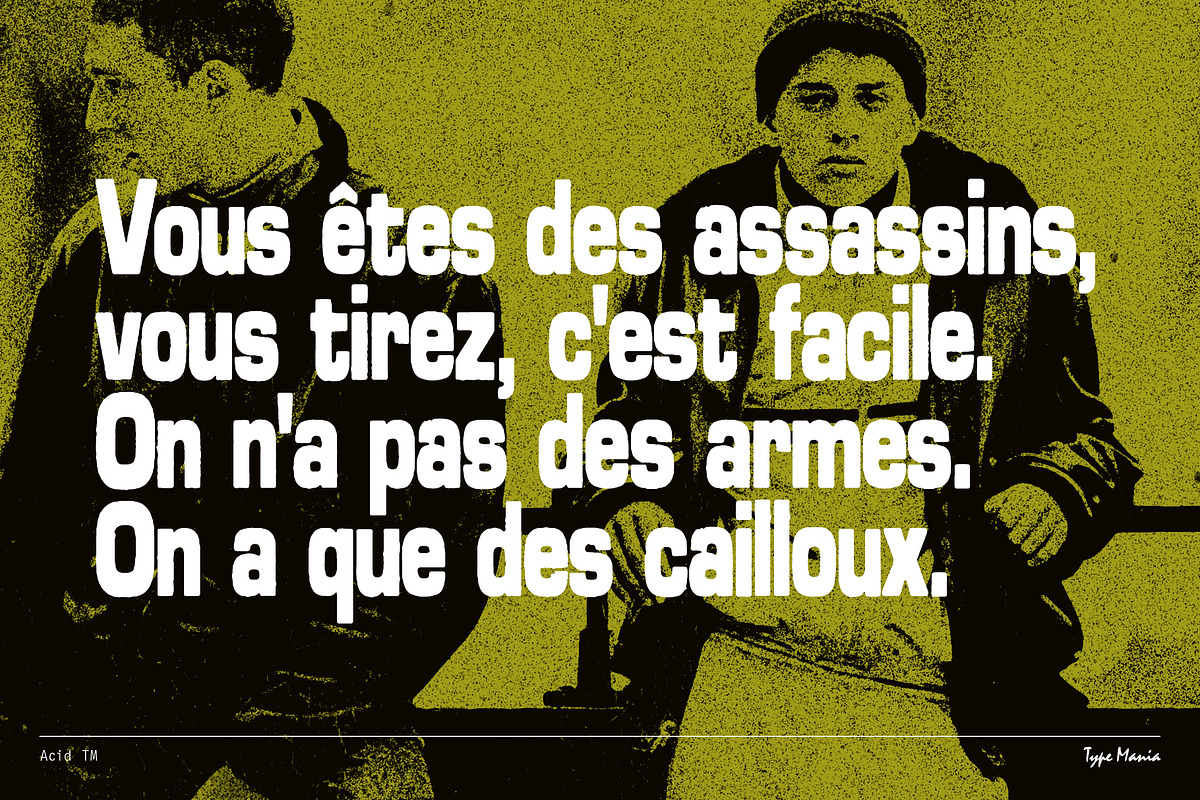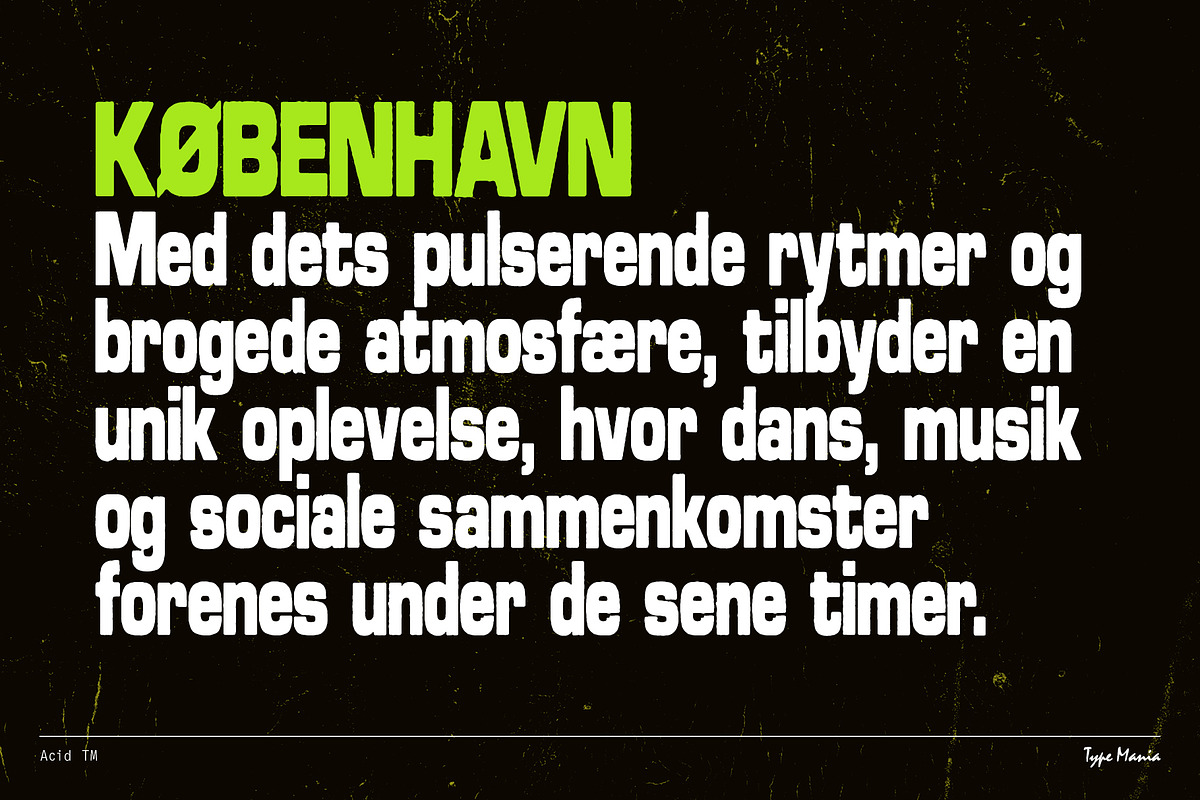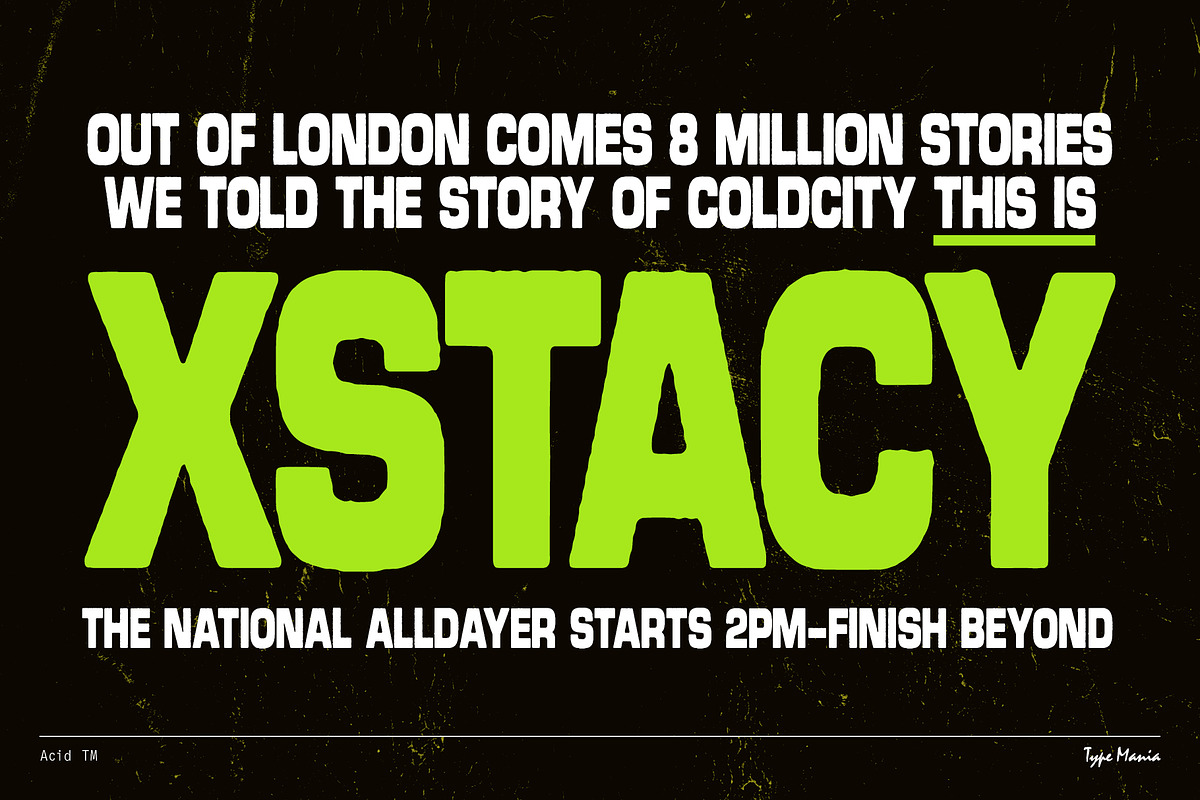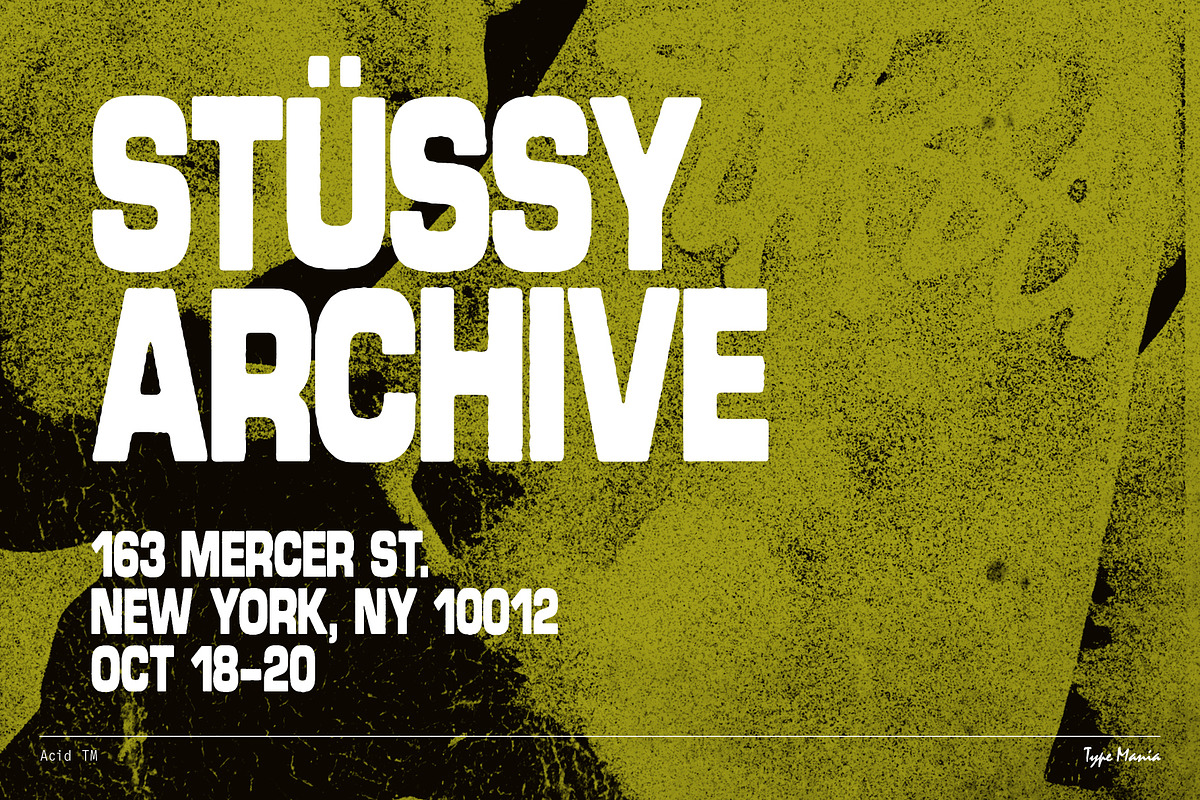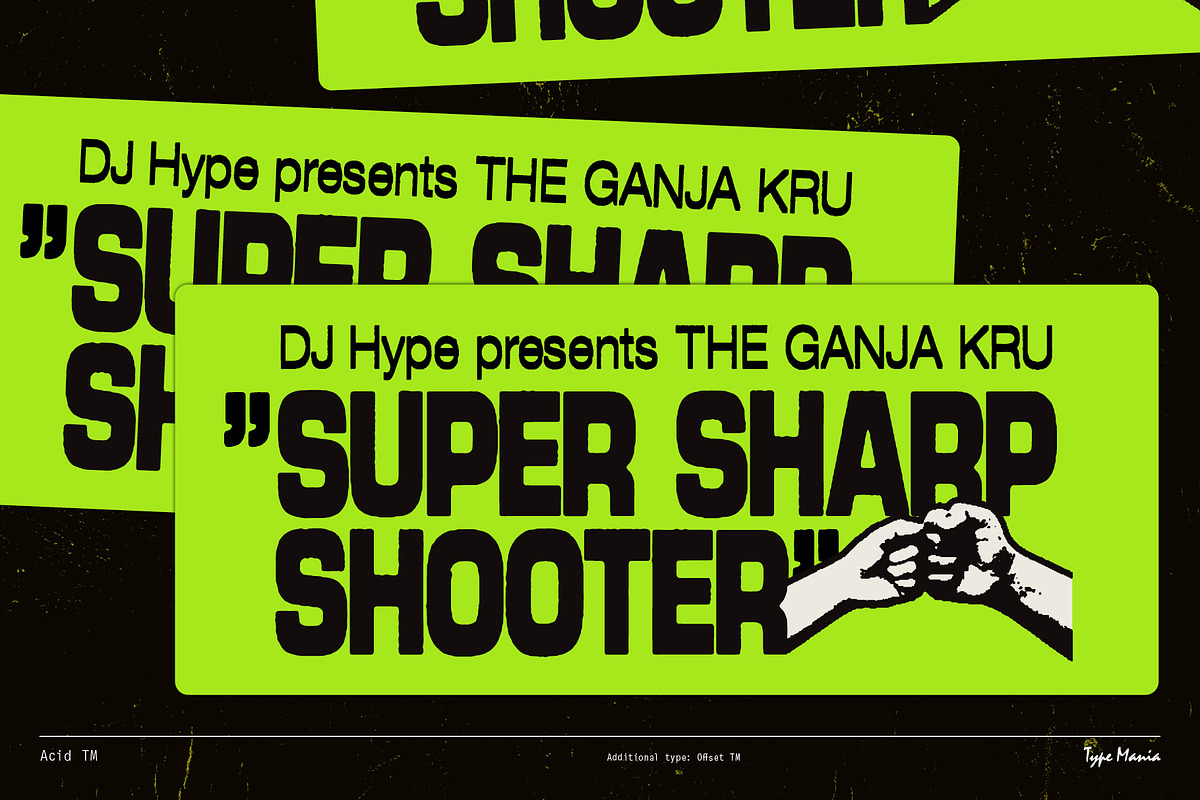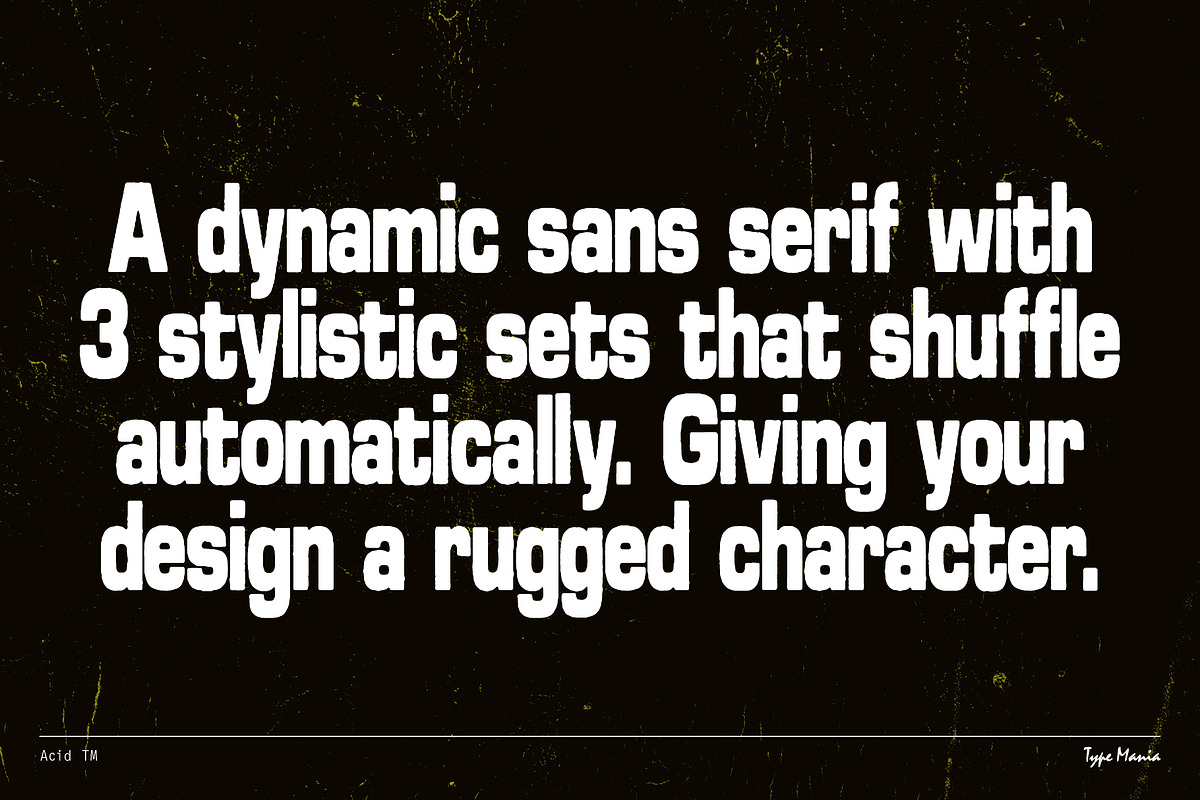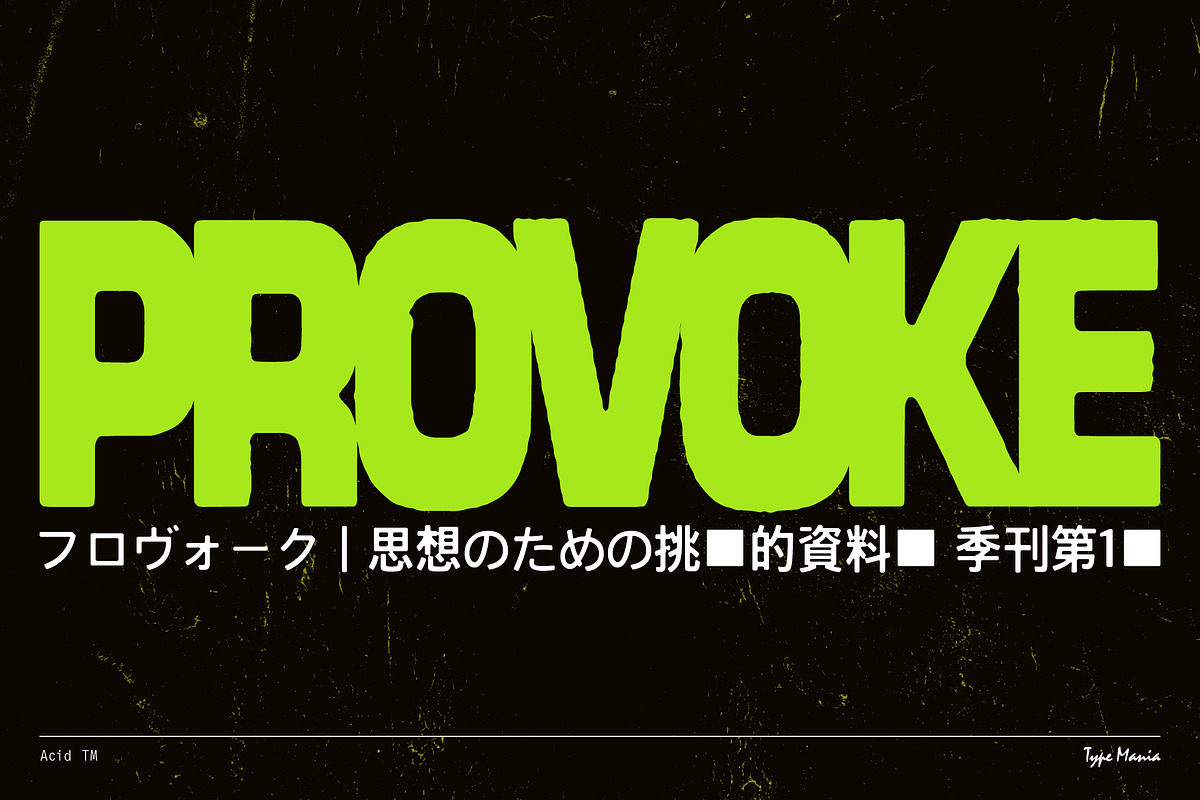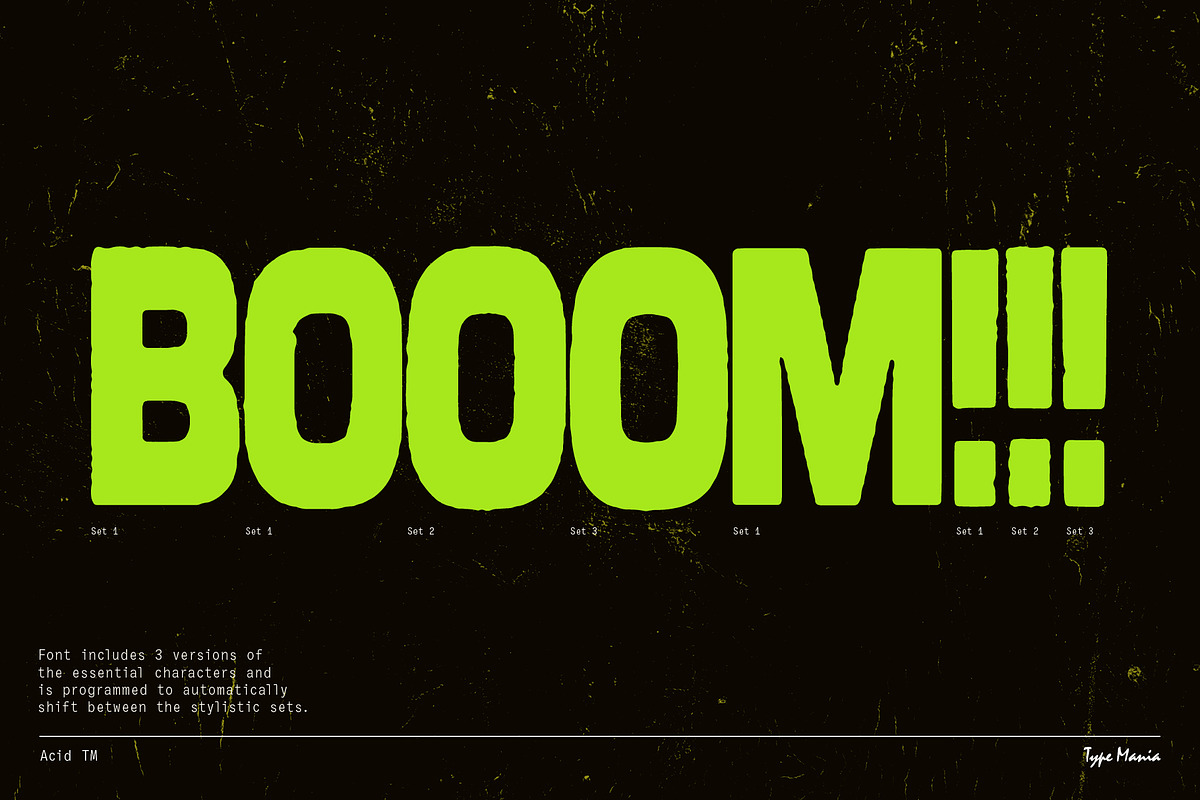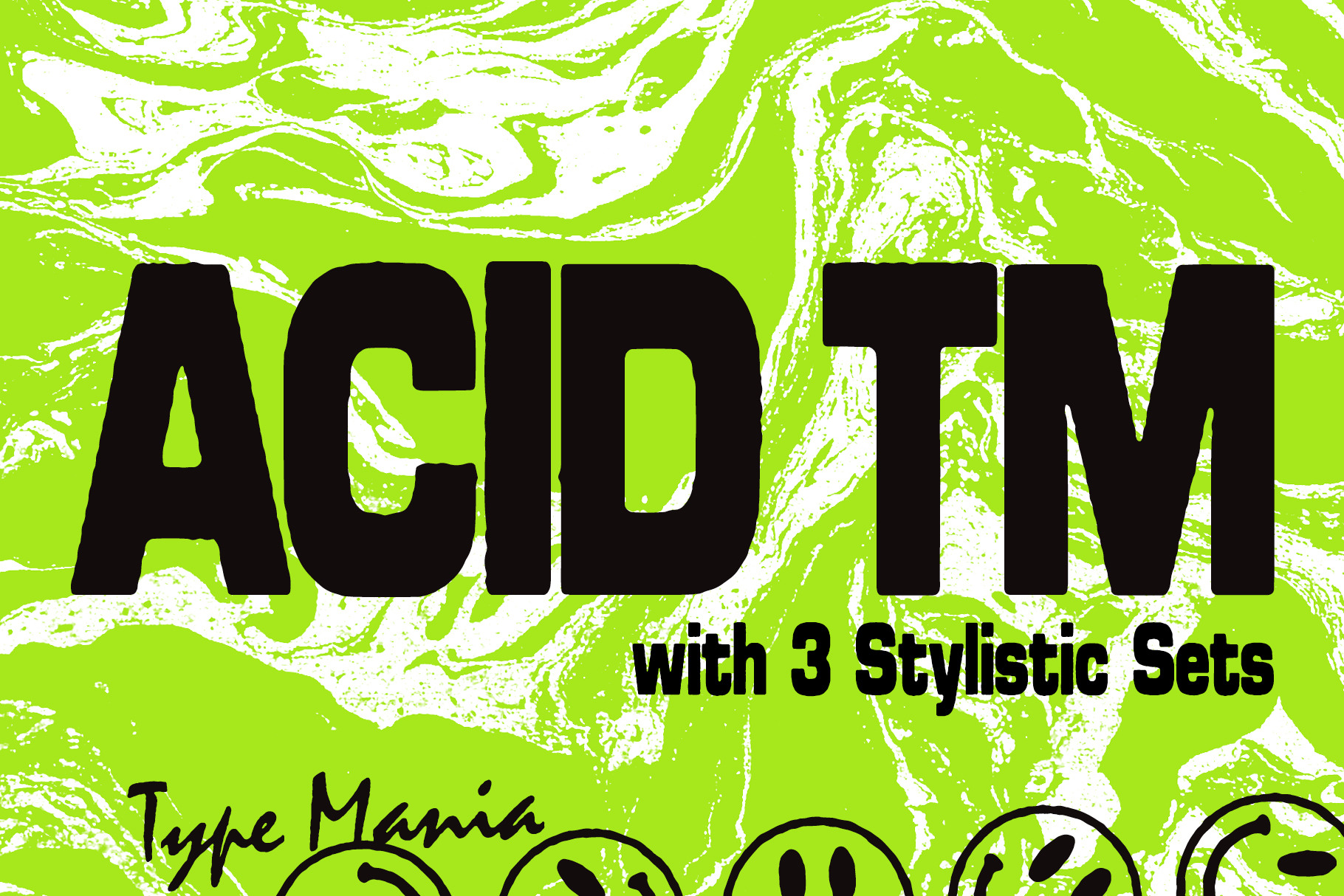
Acid TM – Rugged Dynamic Typeface
Acid TM is a rugged geometric sans serif. Perfect for your flyer, record cover or t-shirt design. It includes three stylistic sets of all the essential glyphs, which shift automatically to add character and texture.
OpenType features
- 3 stylistic sets
- The font is programmed to automatically shift between the stylistic sets whenever the same glyphs are typed side by side